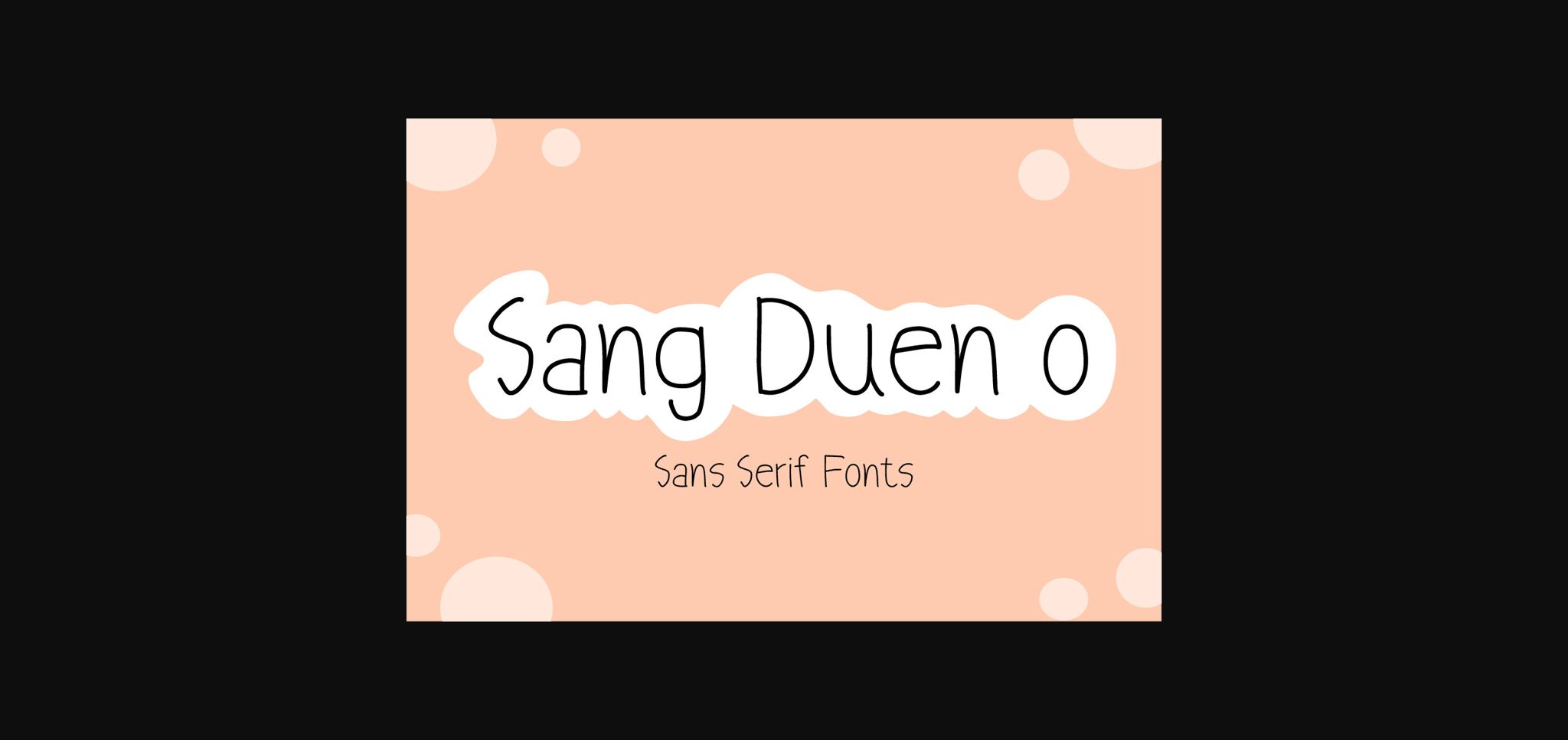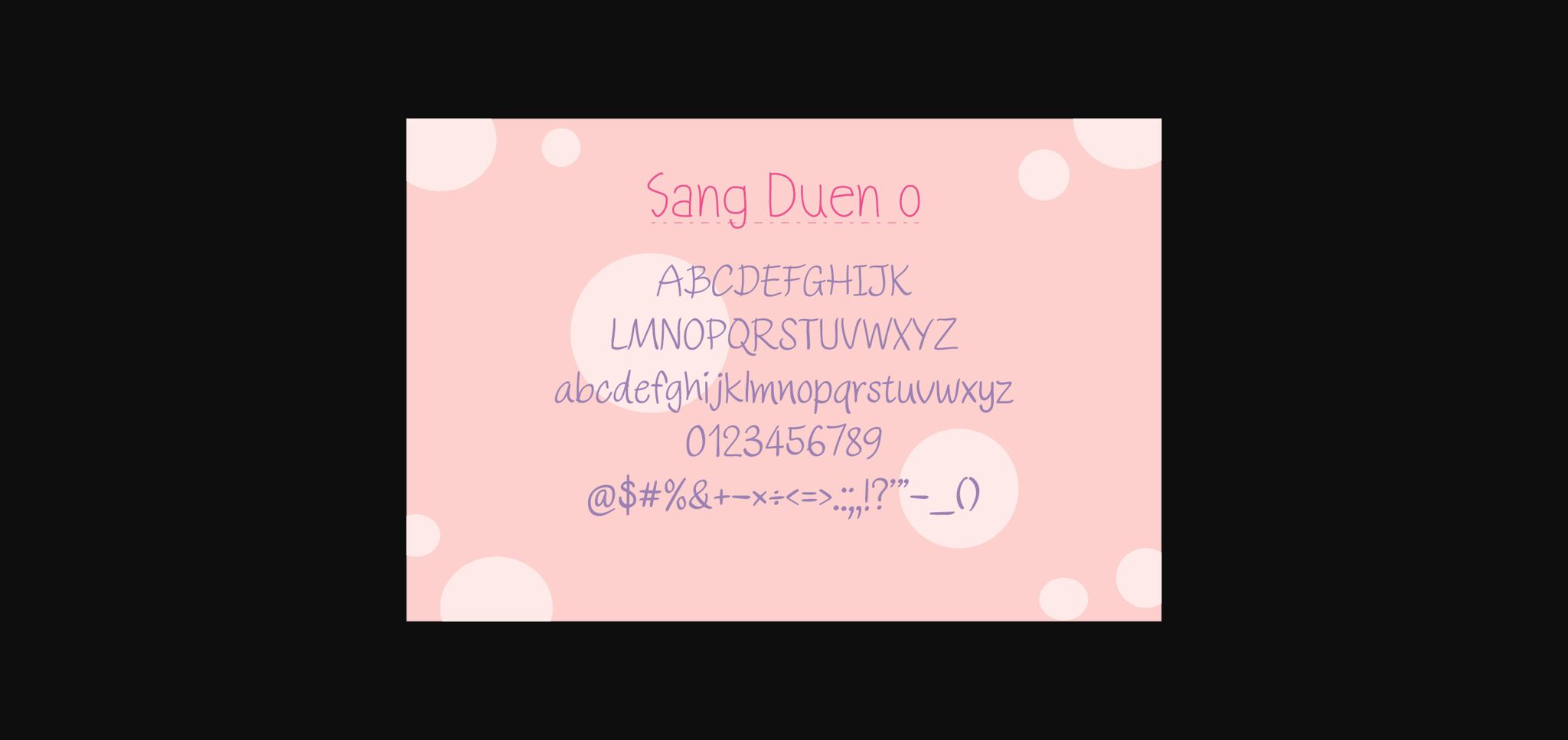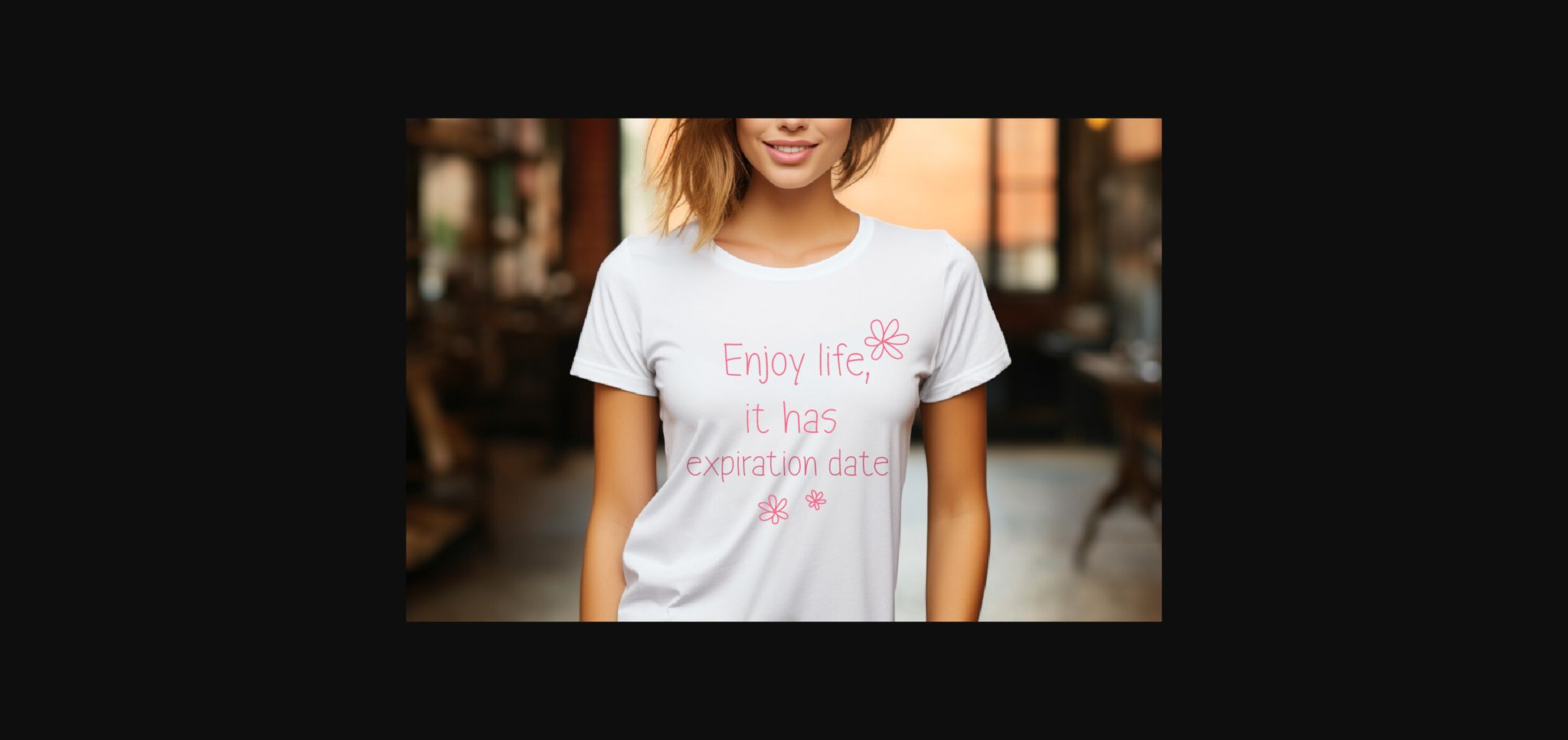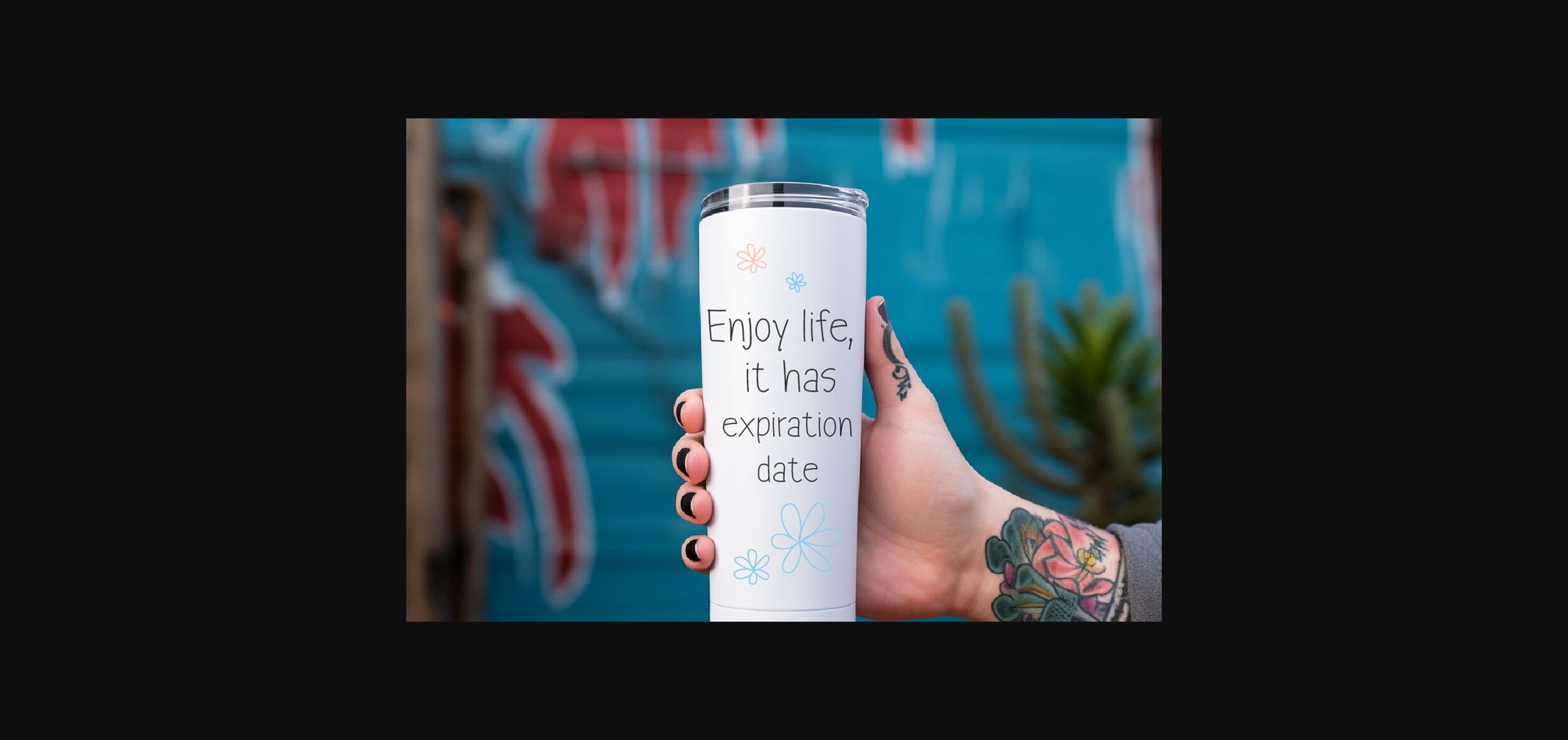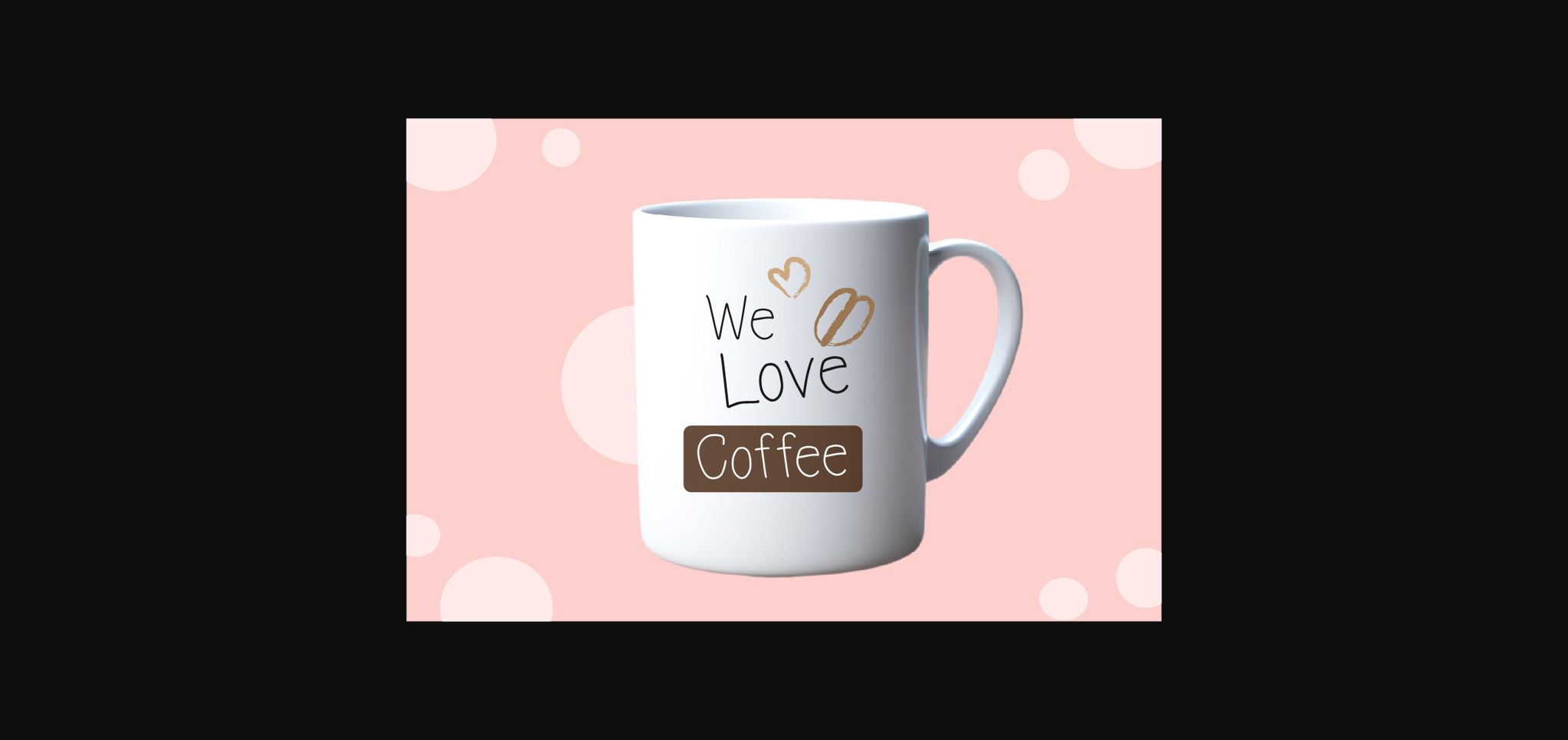
Sang Duen O Font
About Sang Duen O Font
Sang Duen O is designed in a stylish, a cute and modern sans serif font style. It would be an awesome addition to your fun projects or magical designs.